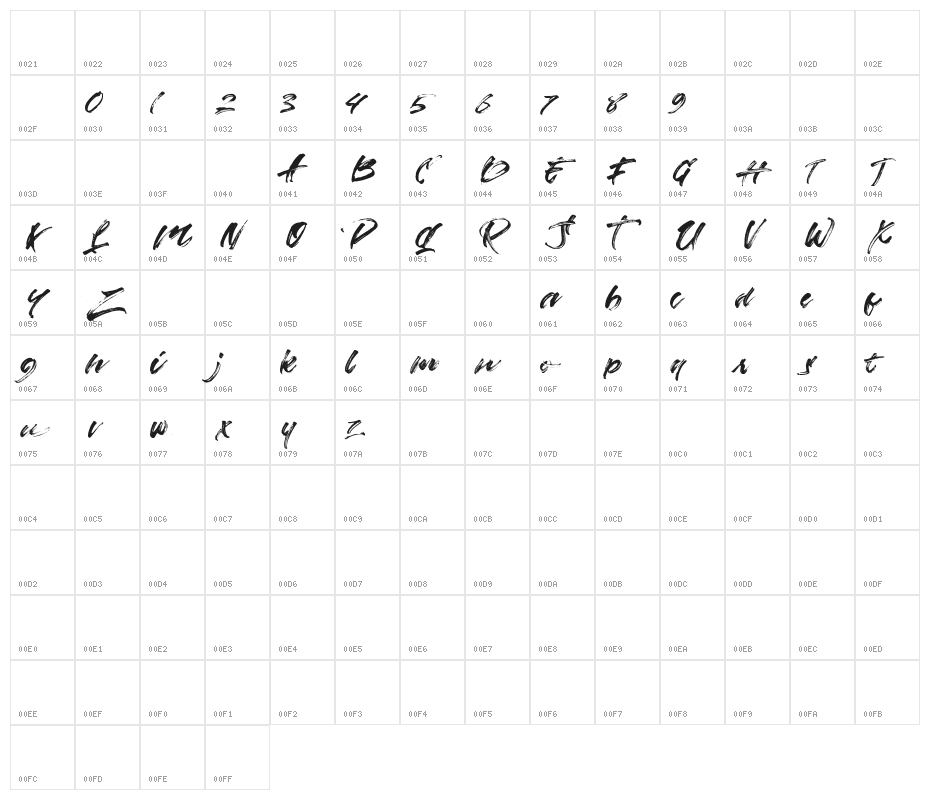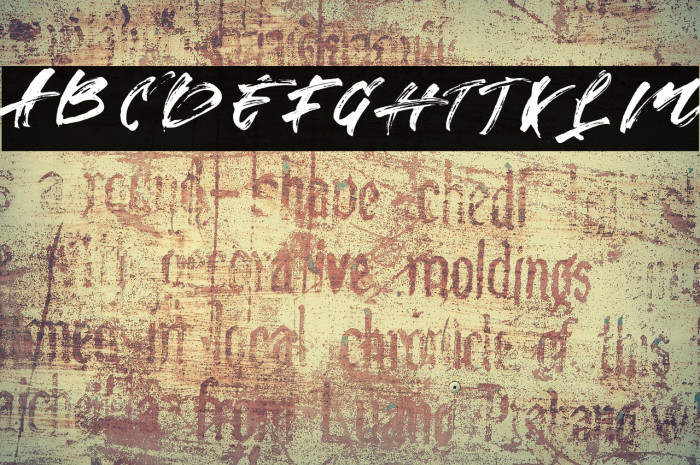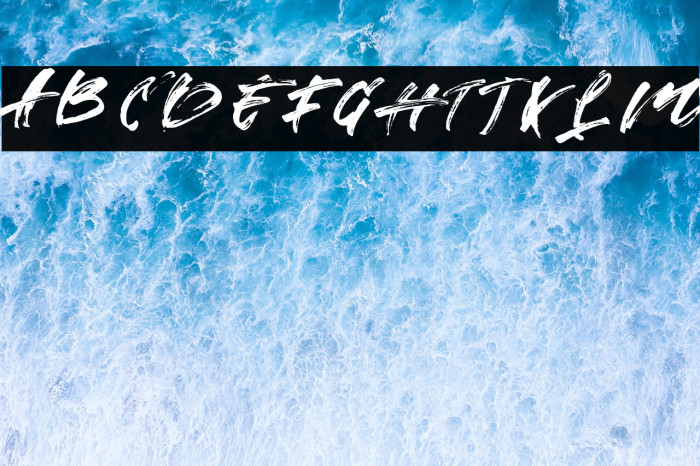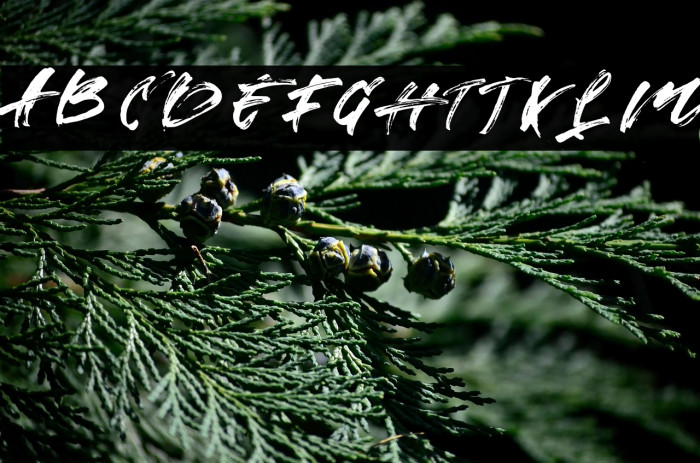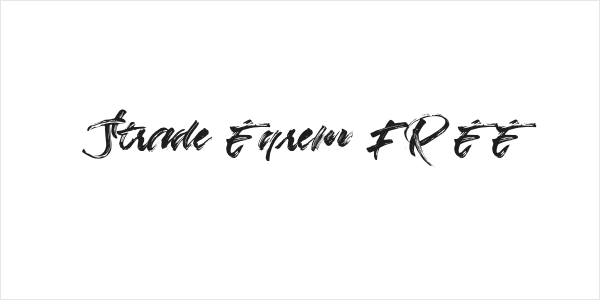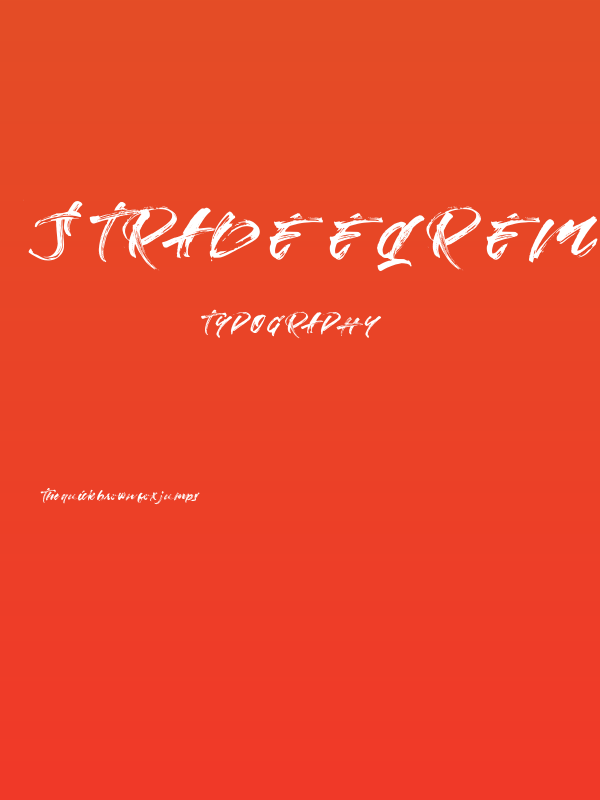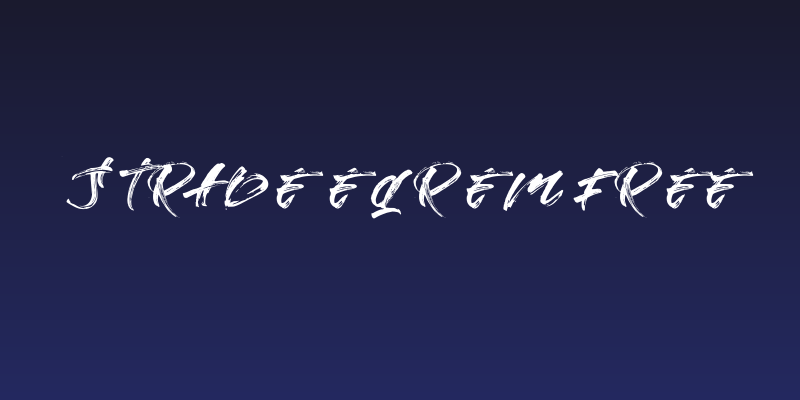
Strade Eqrem FREE Font
Strade Eqrem FREE Description
This font features a dynamic and expressive brush style, characterized by its bold, sweeping strokes and a hand-painted appearance. The letters exhibit a high level of contrast, with thick and thin lines that create a sense of movement and energy. The uppercase and lowercase letters maintain a consistent style, with a slightly irregular baseline that adds to the font's artistic flair. The numbers and special characters follow the same expressive design, making the font versatile for creative projects. Its unique style is perfect for making a statement in any design.
| Proposed Projects | Ideal for branding, posters, album covers, and any project requiring a bold, artistic touch. |